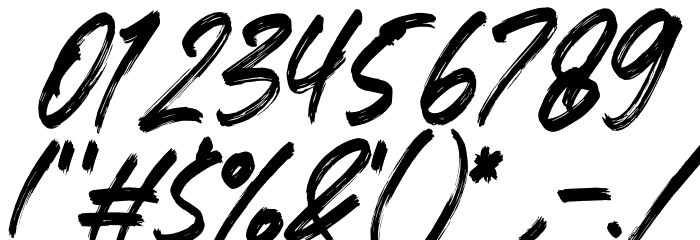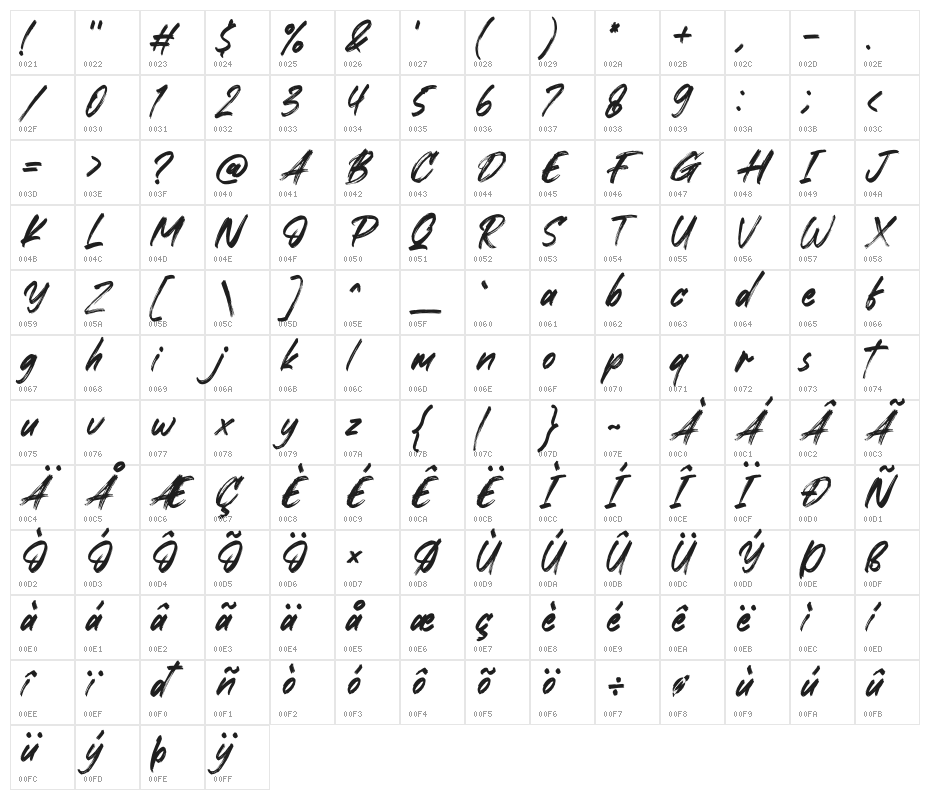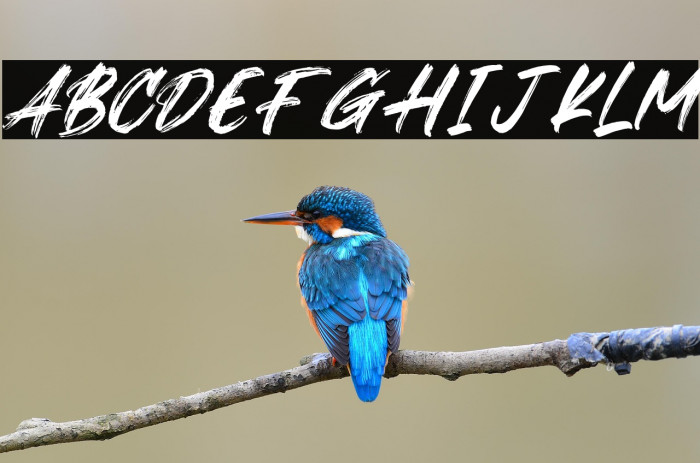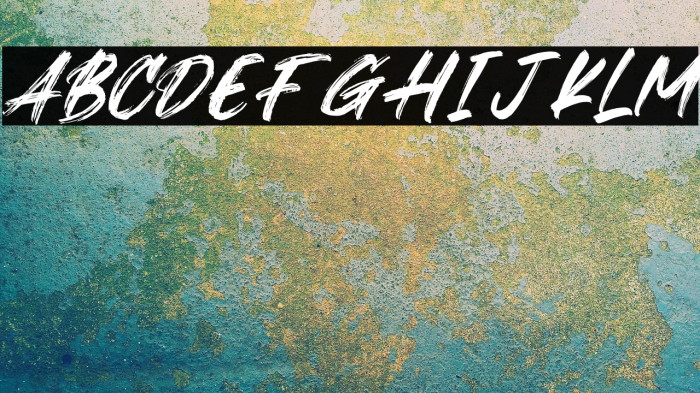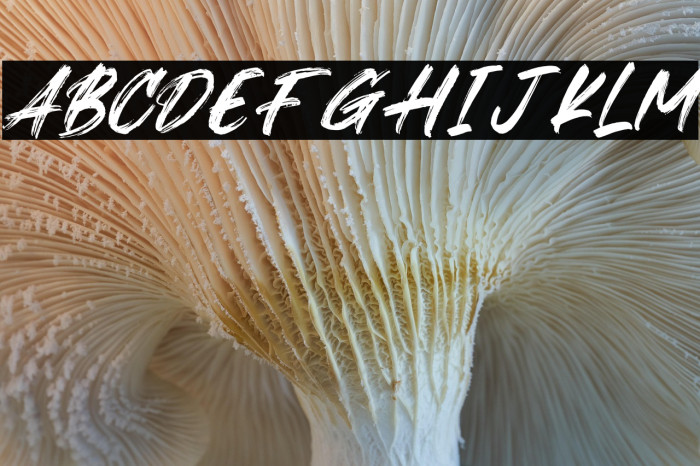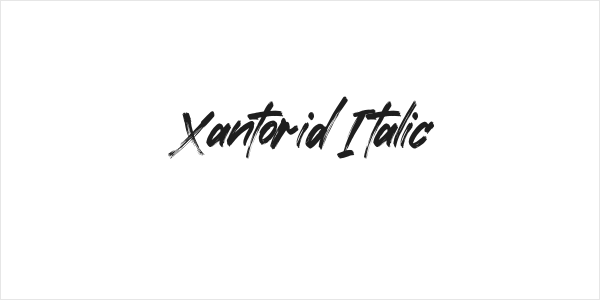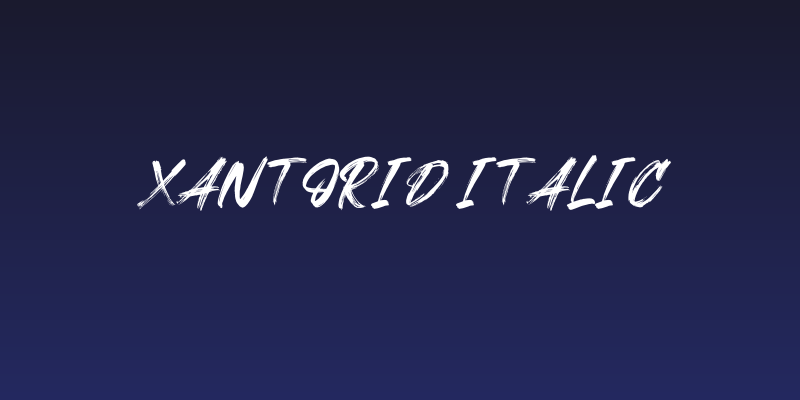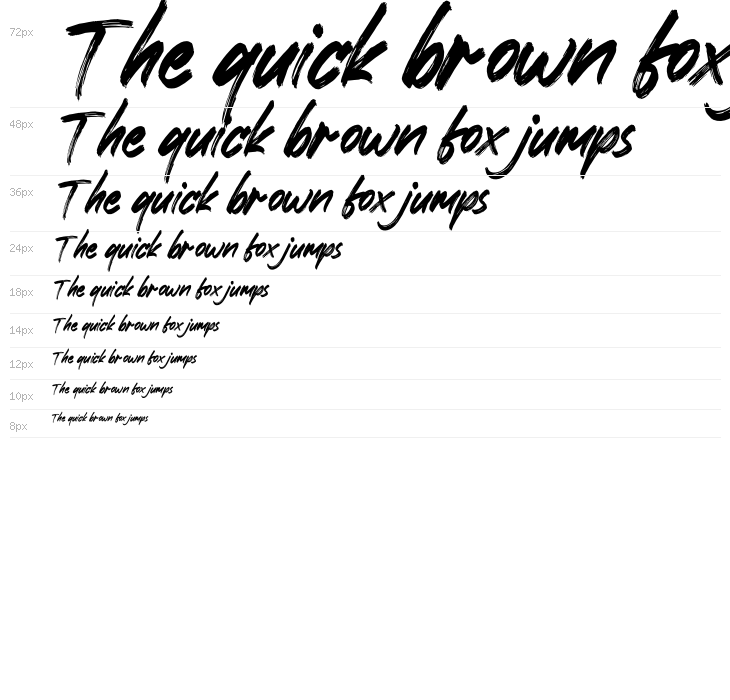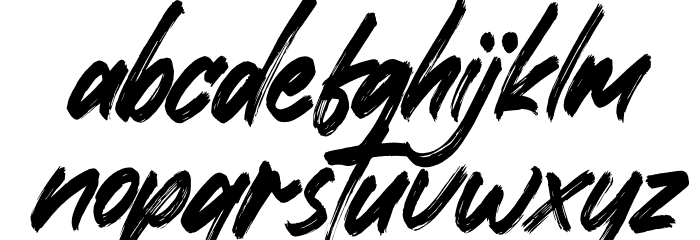
Xantorid Italic Font
Xantorid Italic Description
This font exhibits a bold, expressive style with a brush-like texture that gives it a dynamic and energetic appearance. The strokes are thick and varied, creating a sense of movement and fluidity. The characters are slightly slanted, enhancing the italicized effect, and the overall design is reminiscent of hand-painted lettering. The uppercase and lowercase letters maintain a consistent style, while the numerals and special characters integrate seamlessly with the alphabet. This font's unique character makes it stand out, ideal for creative and artistic projects.
| Proposed Projects | Ideal for posters, branding, artistic projects, and any design requiring a bold, expressive touch. |